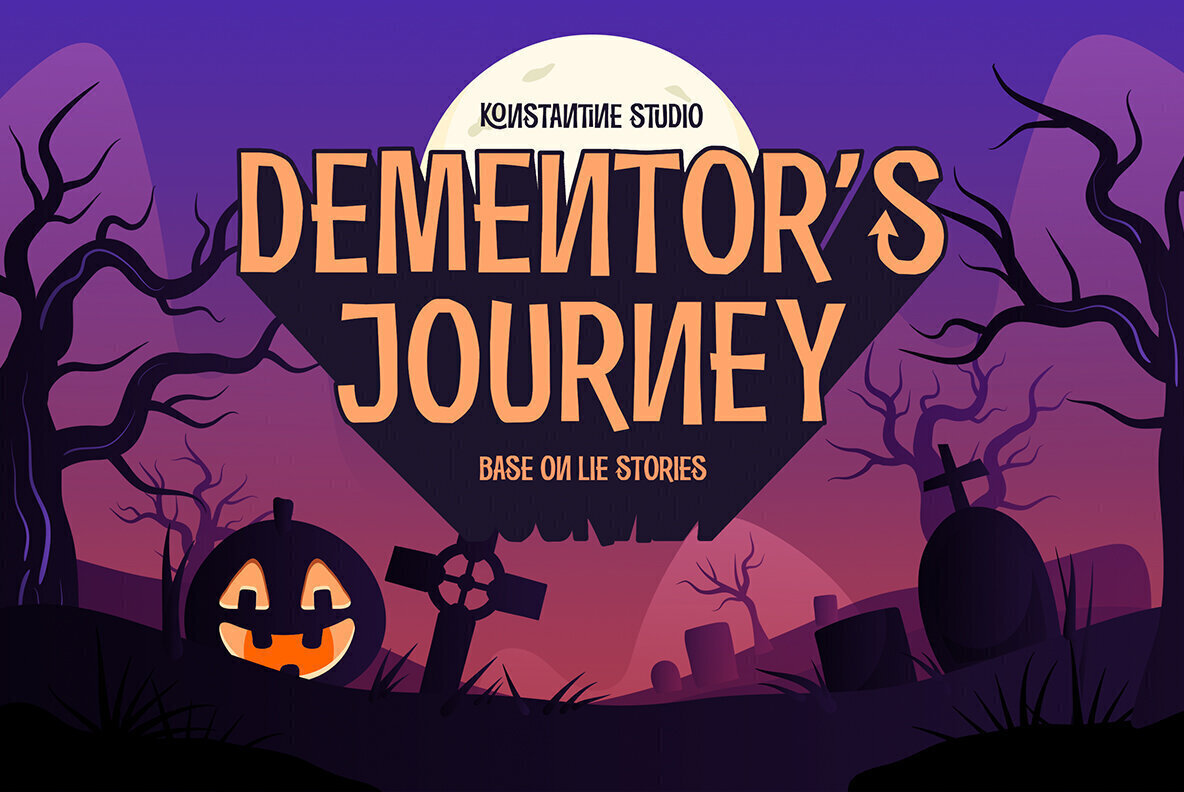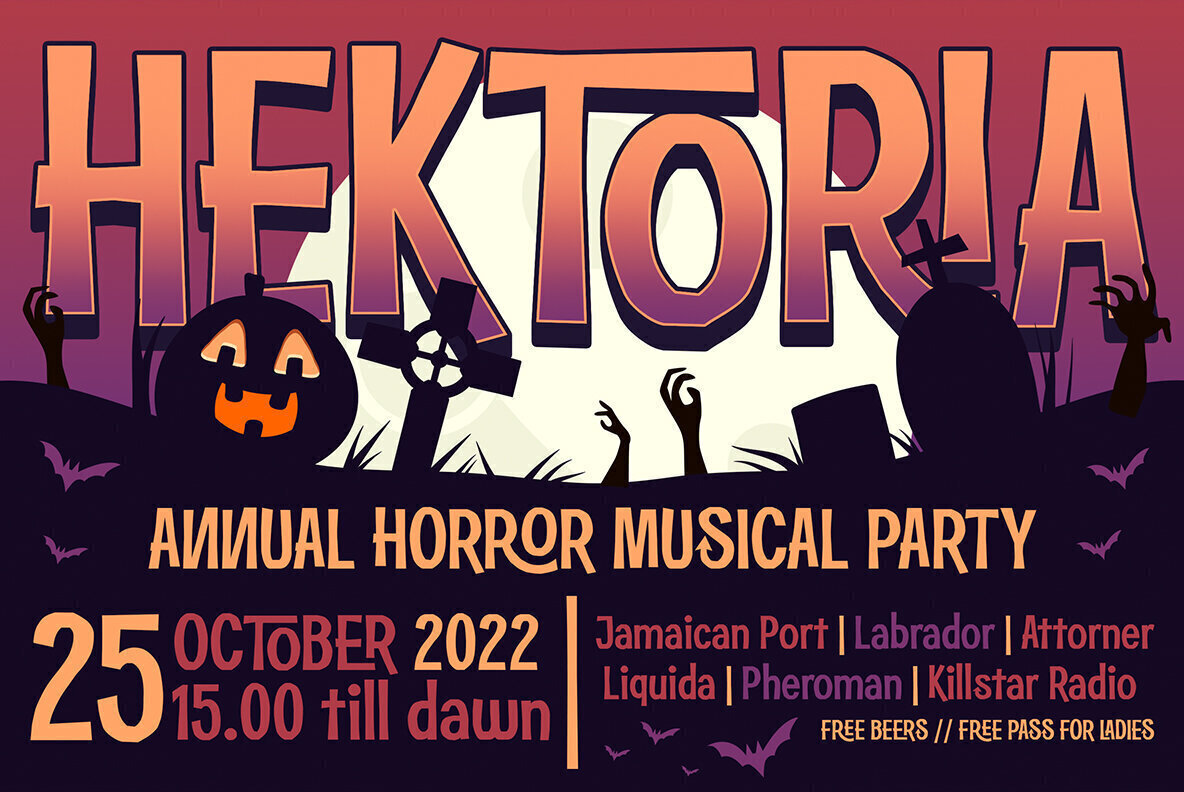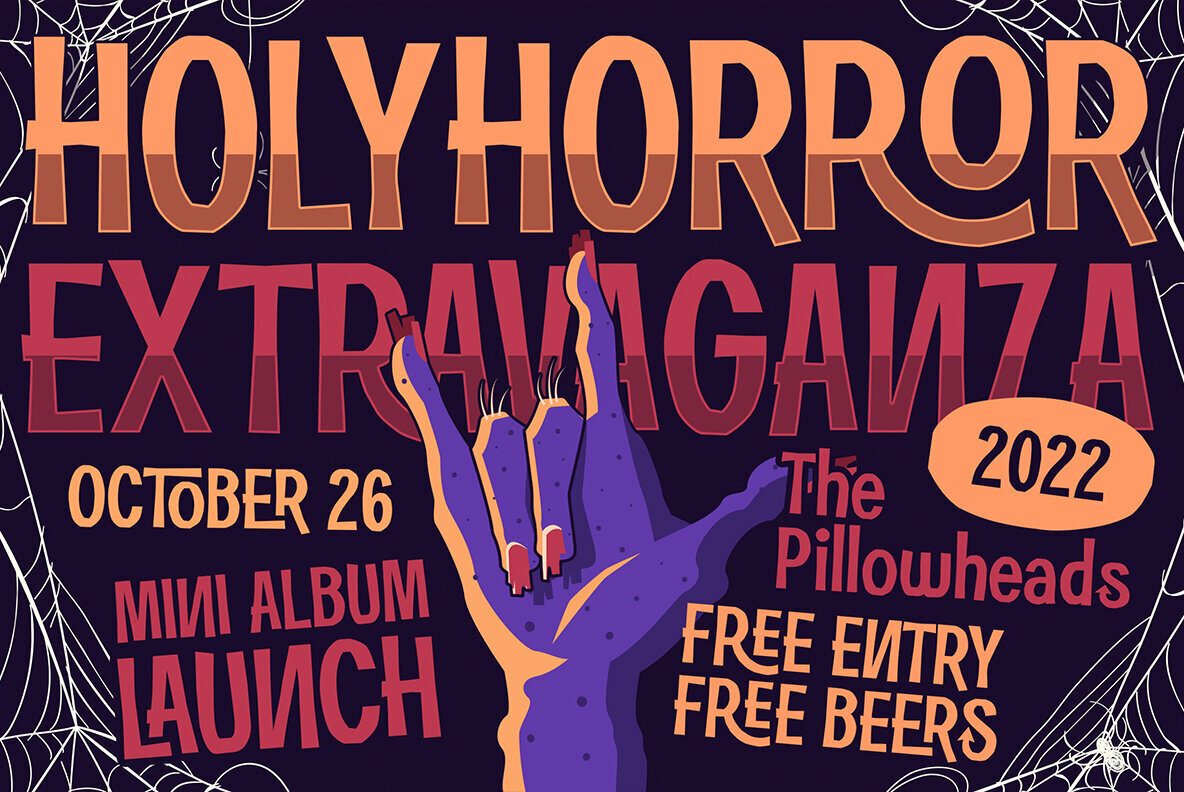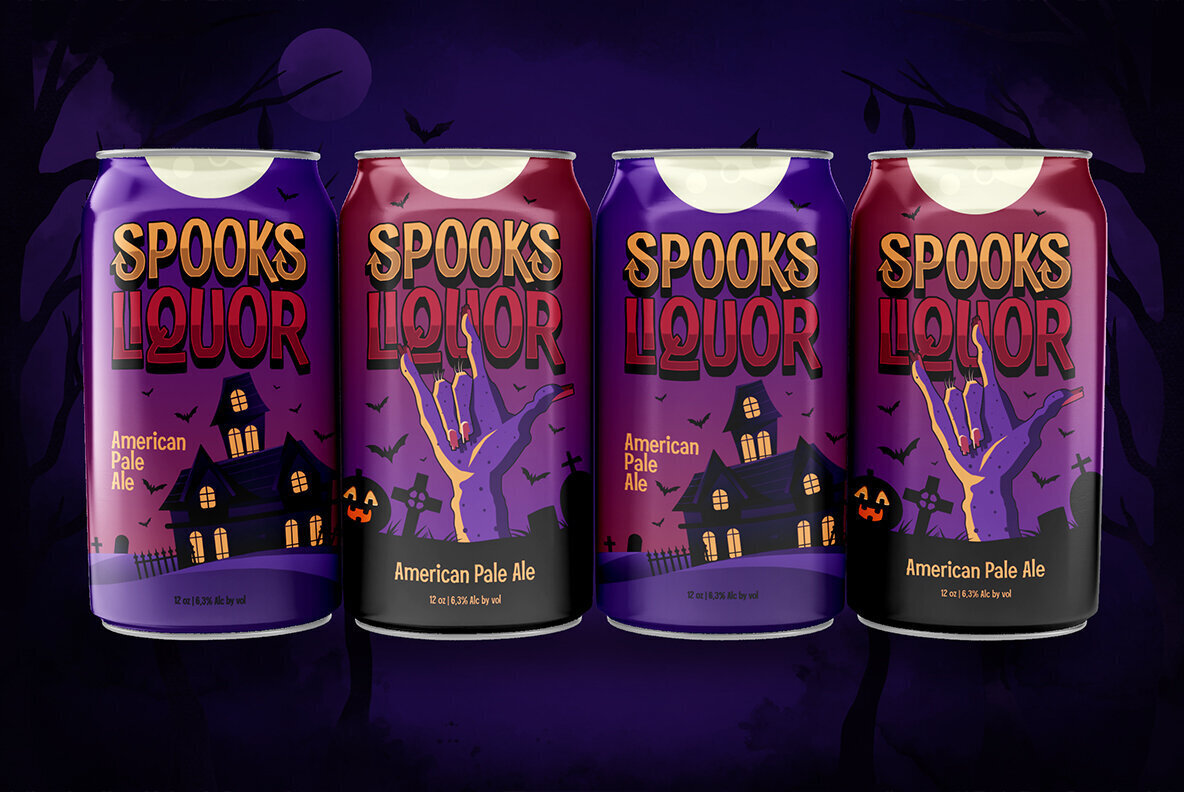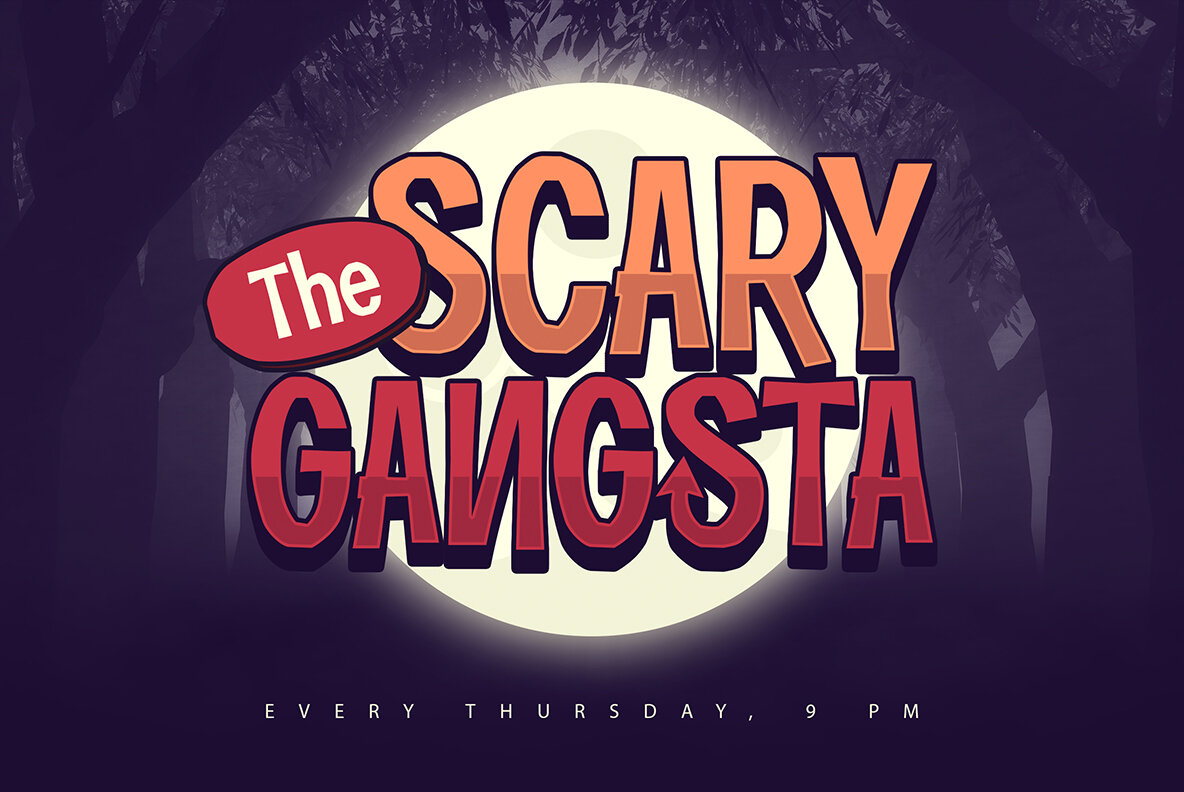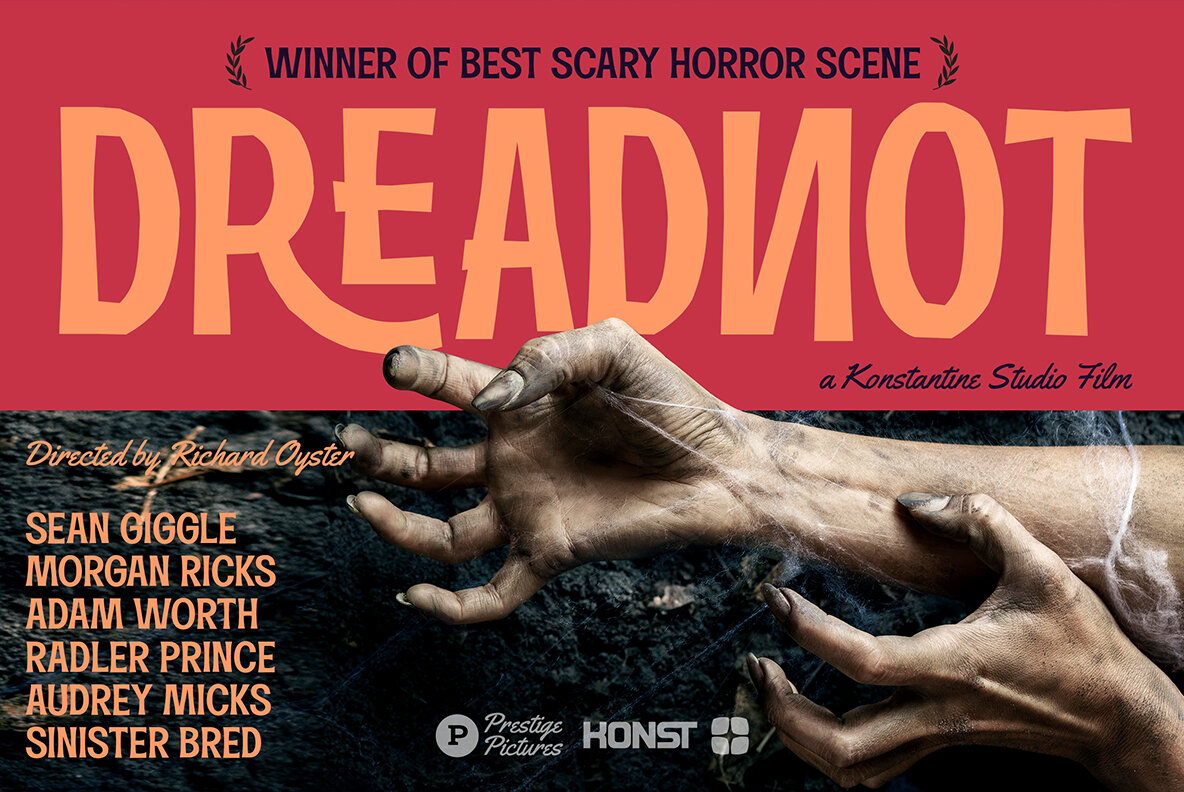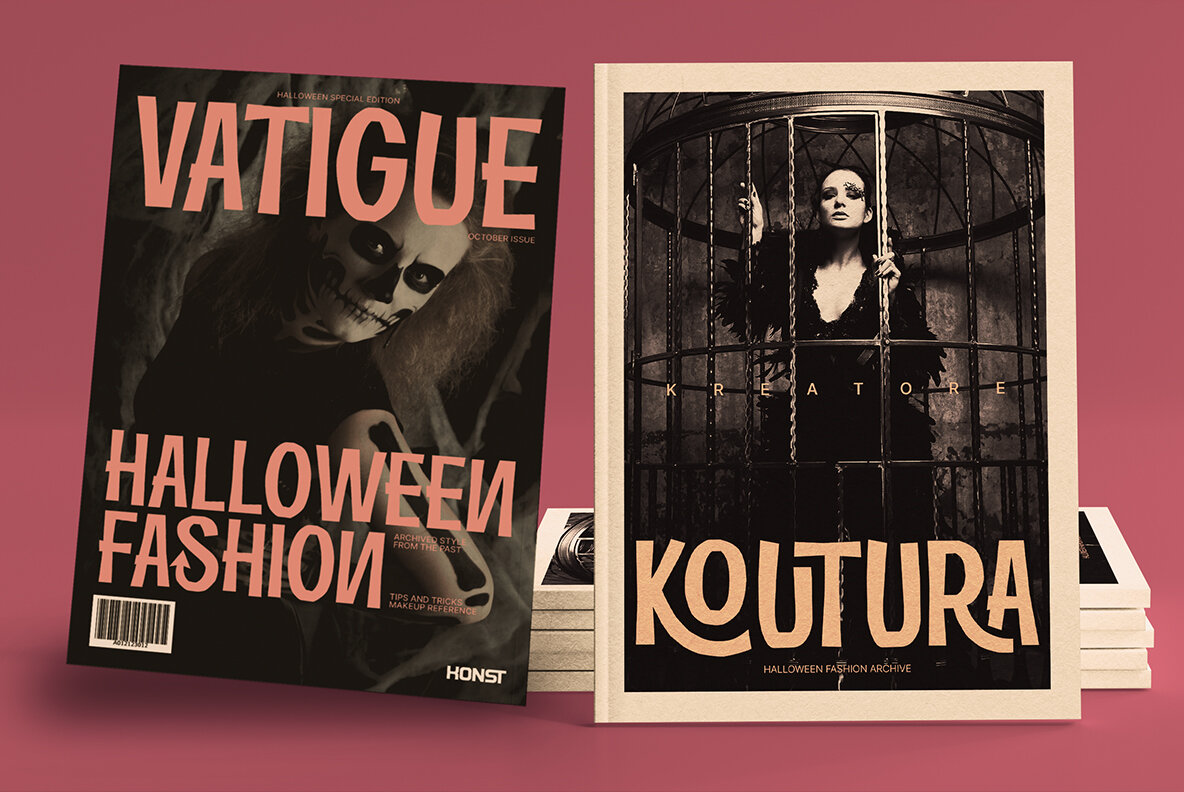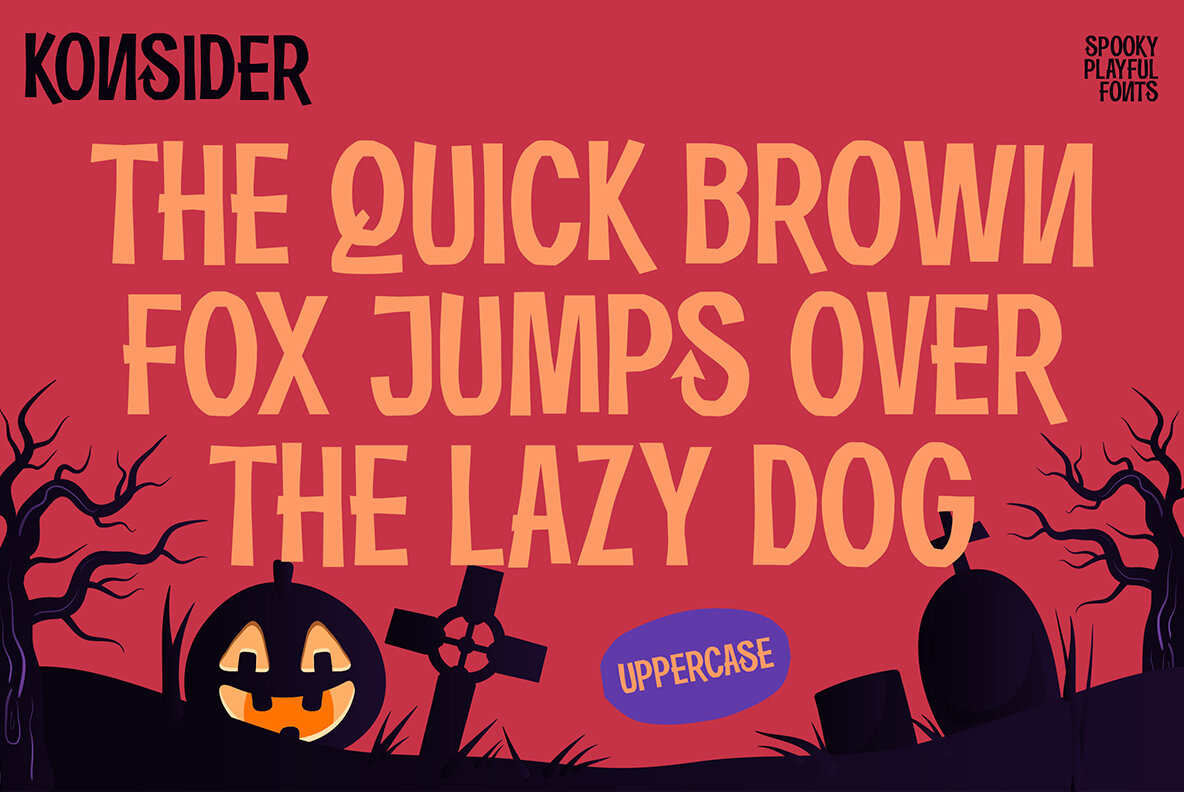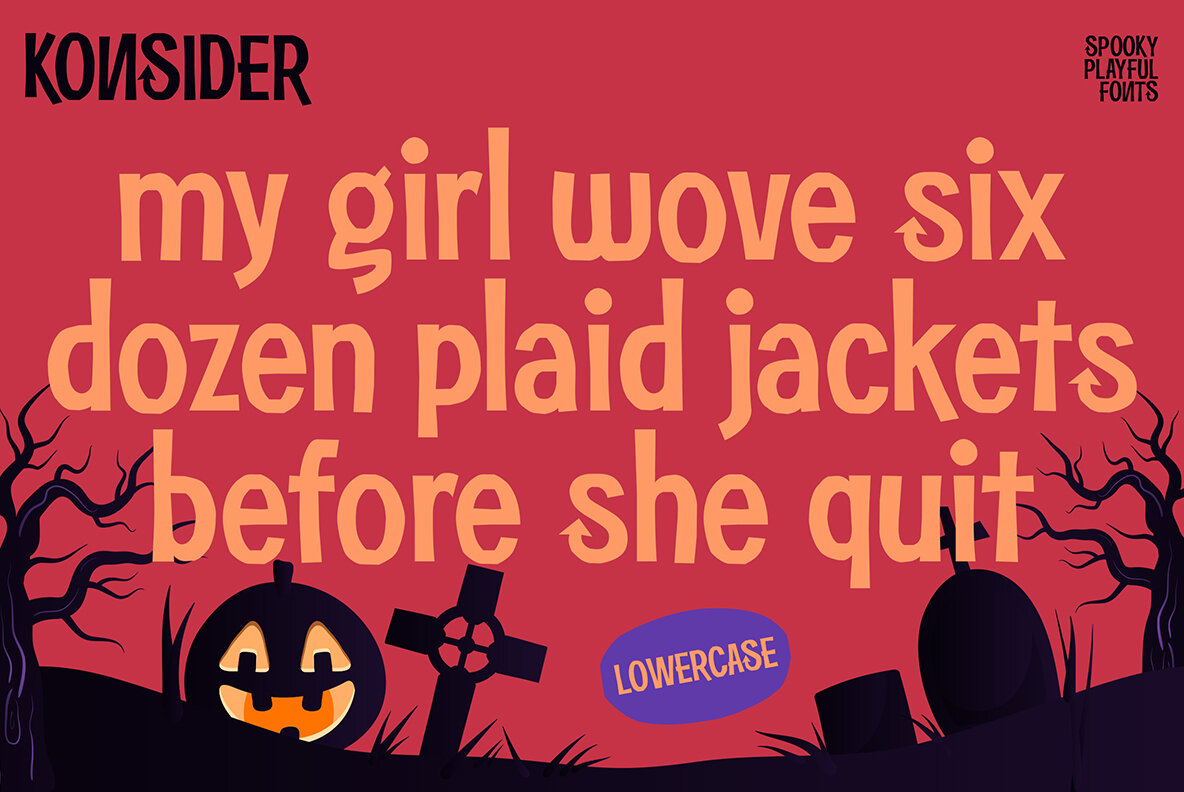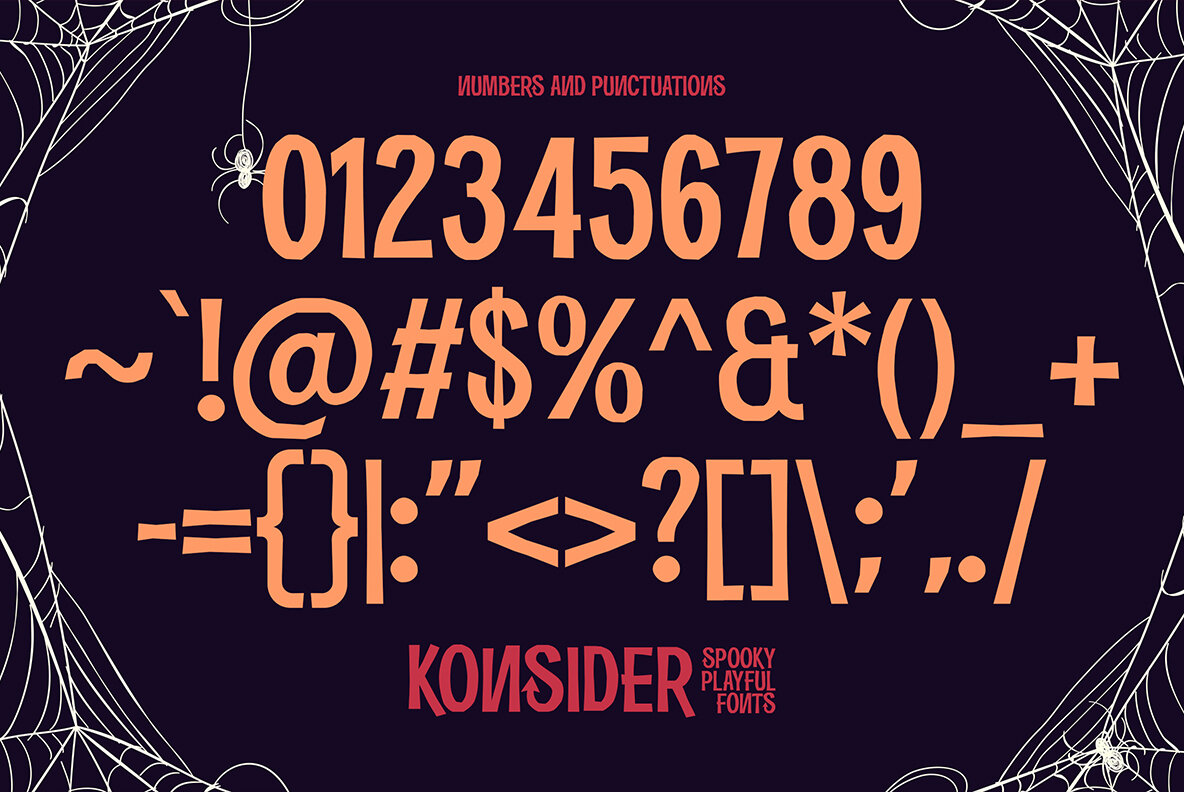
Konsider Font
Konsider Regular
Konsider is here to bring you the perfect balance of spooky and playful. With Ligatures, Stylistic Alternates (and some other tricks up its sleeve), it's sure not only be a no-brainer choice for your next branding campaign.